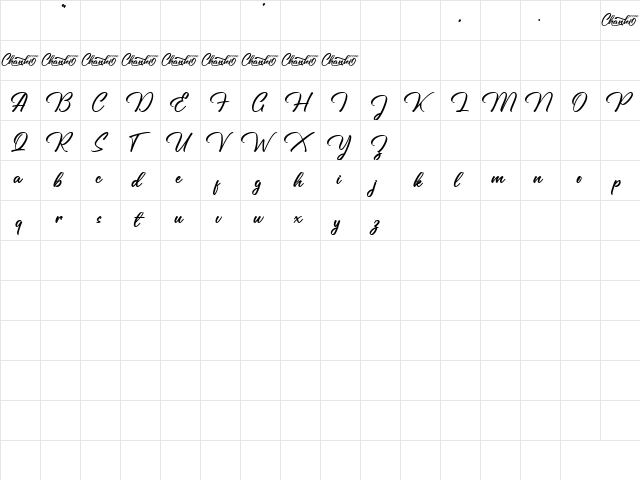
Chanki Personal Use Only Regular
Regular · Ditoollis Project Muhammad Faizal Said ·
Design Context for Chanki Personal Use Only Typeface
Chanki Personal Use Only is a composed and adaptable typeface that performs quietly and consistently across a wide range of design contexts.